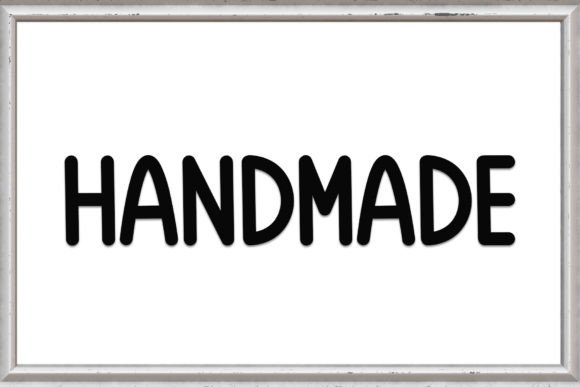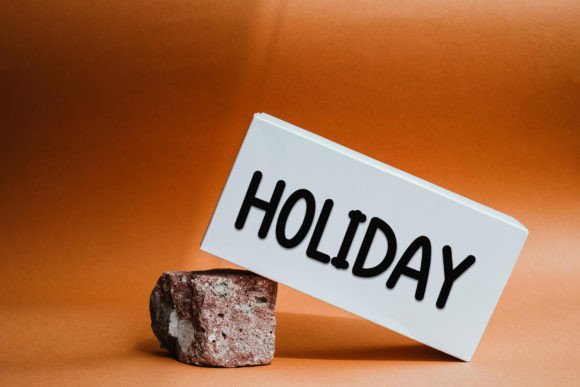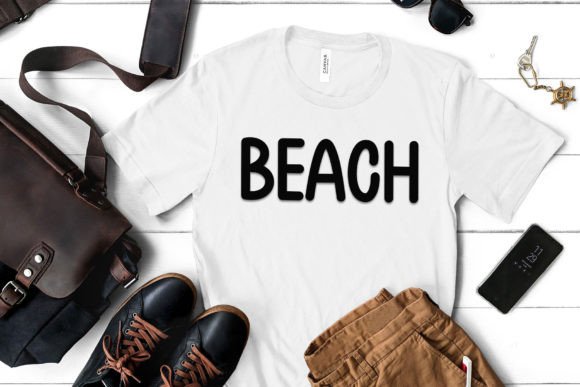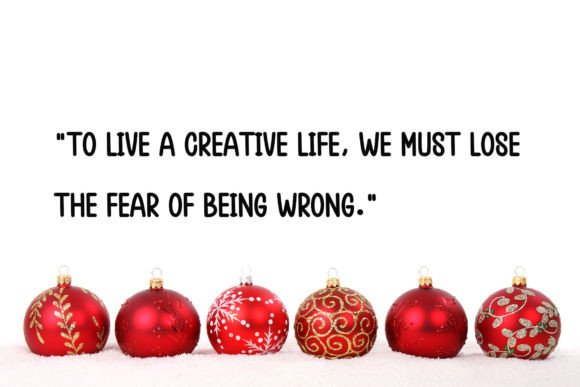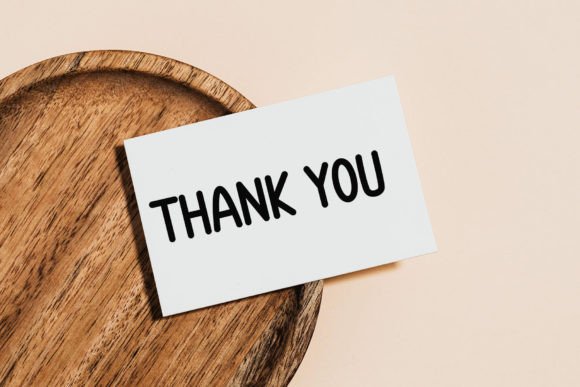
The Sweet Delight of Cupcake Font: A Designer’s Dream Come True
I still remember the moment I fell in love with the Cupcake font. I was working on a project for a client who wanted a custom logo for their bakery, and I was struggling to find the perfect font. That’s when I stumbled upon Cupcake, and it was like a breath of fresh air. The elegant touch, the whimsical feel, and the timeless style all combined to make my design dreams come true.
So, what makes Cupcake font so special? Here are a few things that I absolutely adore:
- ✨ Elegant and sophisticated: Cupcake font exudes a sense of refinement and luxury, making it perfect for high-end designs.
- ✅ Highly legible: Despite its elegant feel, Cupcake font is incredibly easy to read, even at small sizes.
- 🌸 Whimsical touch: The font’s handwritten feel adds a playful touch to any design, making it perfect for creative projects.
Of course, no font is perfect, and Cupcake has a few quirks to watch out for:
- 🤔 Limited character set: While Cupcake font has a wide range of characters, it’s not a full Unicode font, so you may encounter issues with certain special characters.
- ⚠️ Not ideal for body text: While Cupcake font is beautiful, it’s not the best choice for long blocks of text. It’s better suited for headlines, titles, and short paragraphs.
Cupcake font was designed with the intention of creating a beautiful and elegant handwritten font that would add a touch of sophistication to any design. The designer, inspired by the whimsical feel of traditional cupcakes, set out to create a font that would be both refined and playful.
| What is Cupcake font best used for? | Cupcake font is best used for designs that require a touch of elegance and sophistication, such as logos, titles, and short paragraphs. |
| Is Cupcake font suitable for body text? | No, Cupcake font is not ideal for long blocks of text. It’s better suited for headlines, titles, and short paragraphs. |
| Is Cupcake font available in different styles? | Yes, Cupcake font comes in a range of styles, including regular, bold, and italic. |